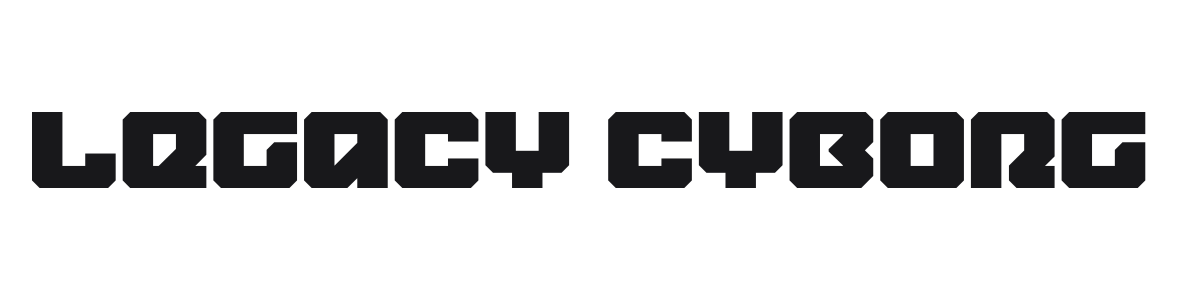
Legacy Cyborg
Legacy Cyborg is a heavy square-geometric techno font built from dense rectangular blocks with sharp notched cuts at key junctions. The characters feel mechanically engineered rather than drawn, evoking armored plating or industrial circuitry. It carries weight in gaming titles, sci-fi branding, and aggressive headline work.